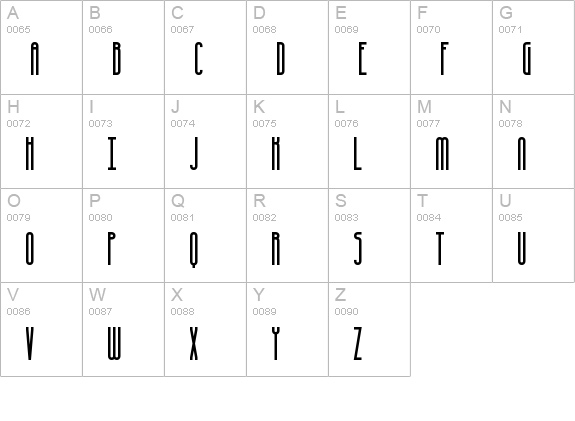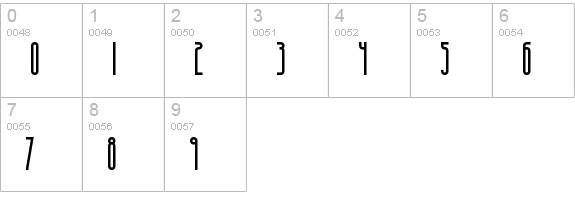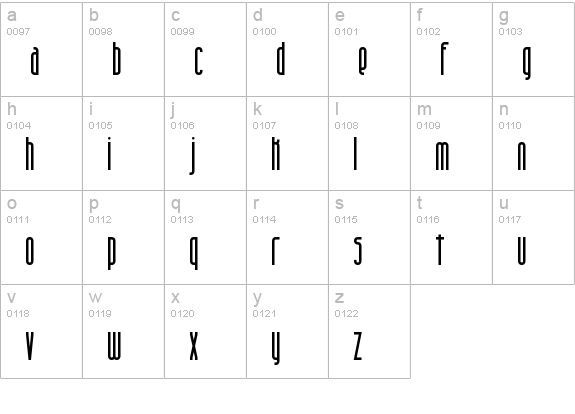
Overhead BRK Font Details
Overhead BRK font is a stunning display typeface that exudes modern elegance and sophistication. With its sleek lines and unique geometric shapes, this font is perfect for creating eye-catching headlines, logos, and branding materials. The clean and contemporary design of Overhead BRK font makes it a versatile choice for a wide range of design projects, from print to digital. Best of all, Overhead BRK font is completely free to download at FontsMarket.com. This means you can add this stylish font to your collection without any cost, allowing you to elevate your designs without breaking the bank. Don't miss out on this fantastic opportunity to enhance your creative projects with the sleek and stylish Overhead BRK font. Download it today and start taking your designs to the next level!